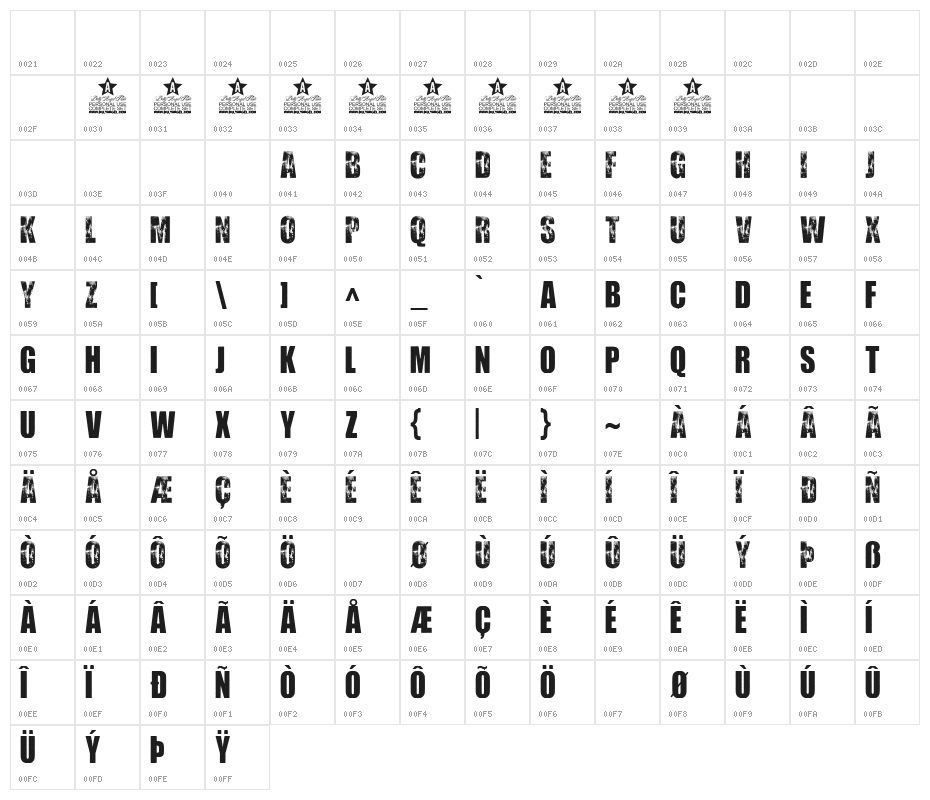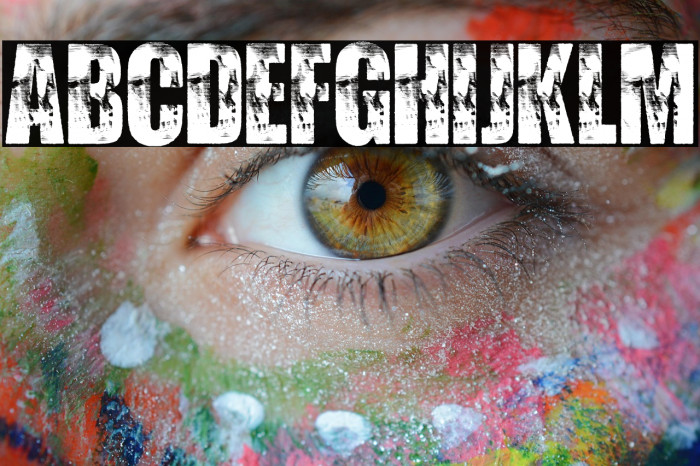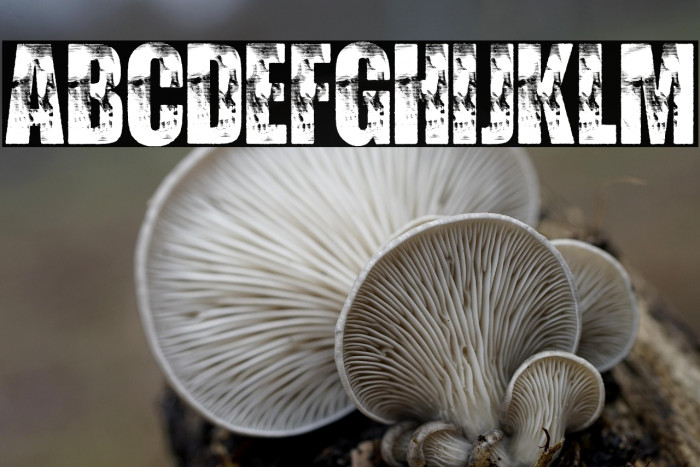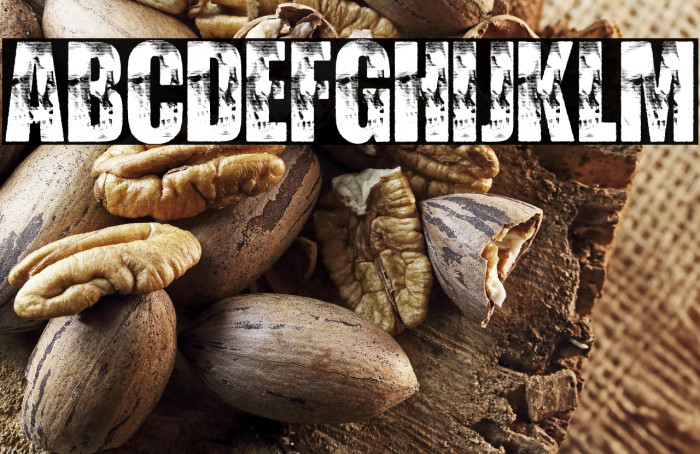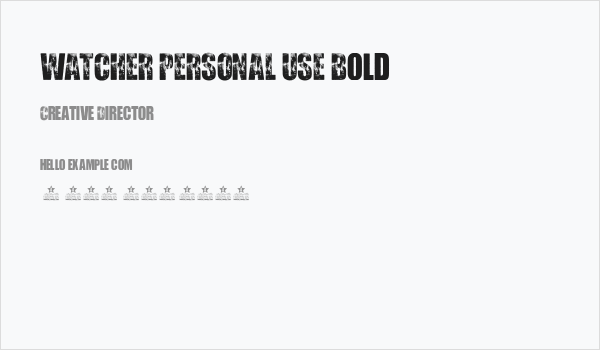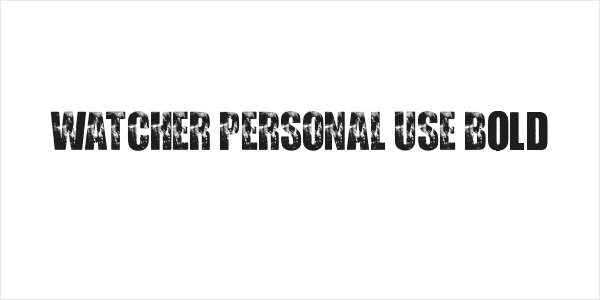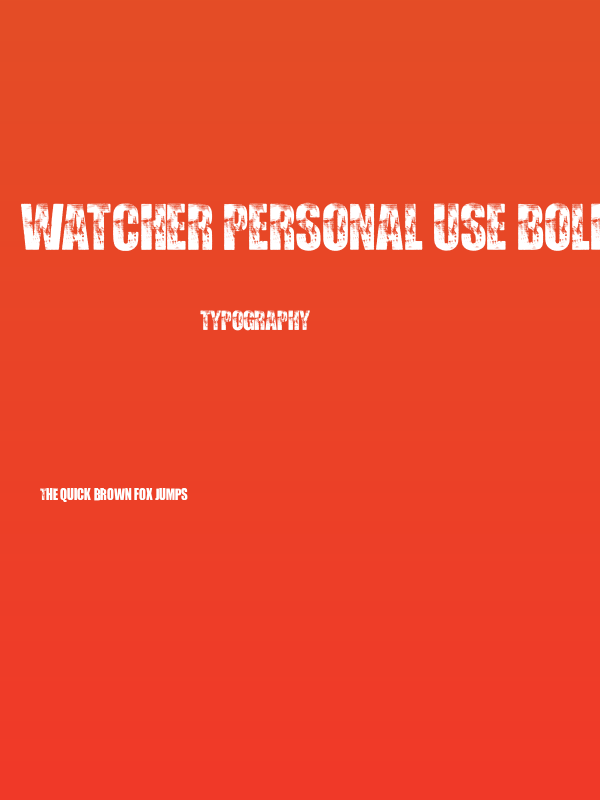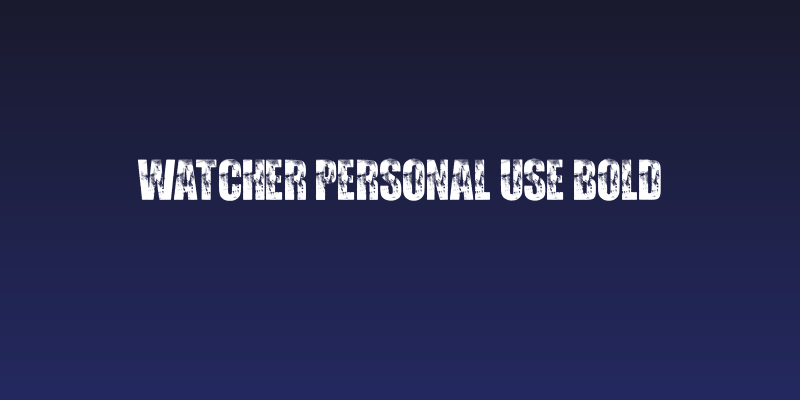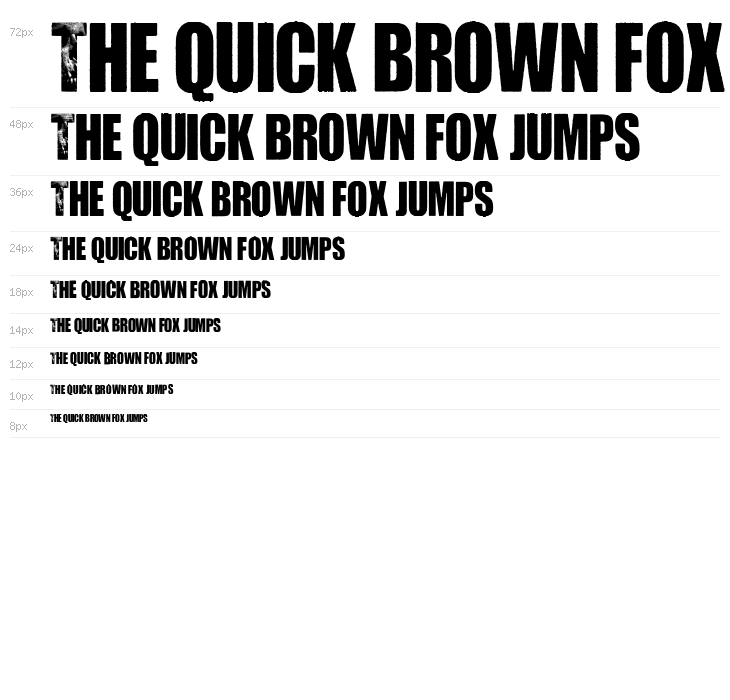
WATCHER PERSONAL USE Bold Font
WATCHER PERSONAL USE Bold Description
This bold, decorative font features a distressed, grunge style that gives it a rugged and edgy appearance. The uppercase letters are prominently displayed with a rough texture, making them stand out with a strong visual impact. The font is designed to capture attention and convey a sense of boldness and strength. Its unique, weathered look is ideal for projects that require a touch of urban or vintage flair. The characters are evenly spaced, ensuring readability while maintaining the font's distinctive style.
| Overall Style | Grunge, Urban, Vintage |
| Proposed Projects | Ideal for posters, album covers, branding, and any design needing a bold, edgy look. |